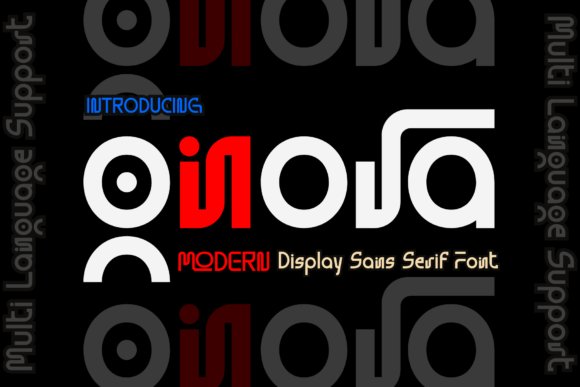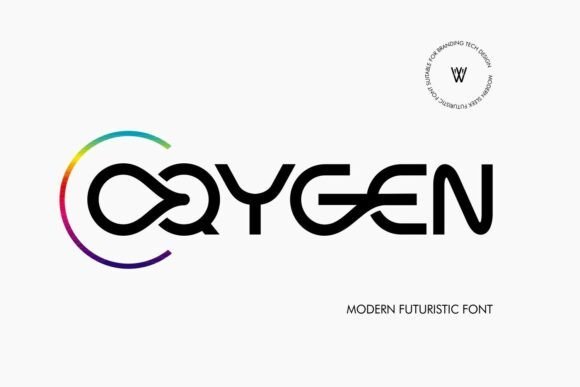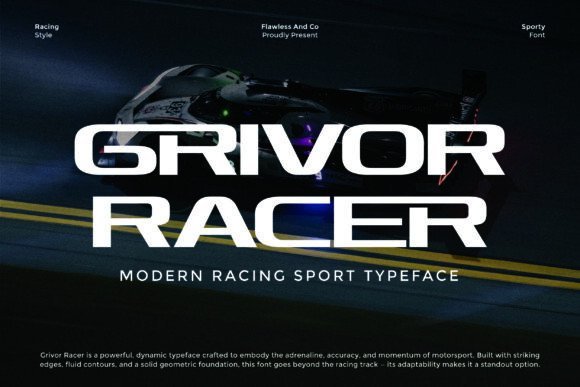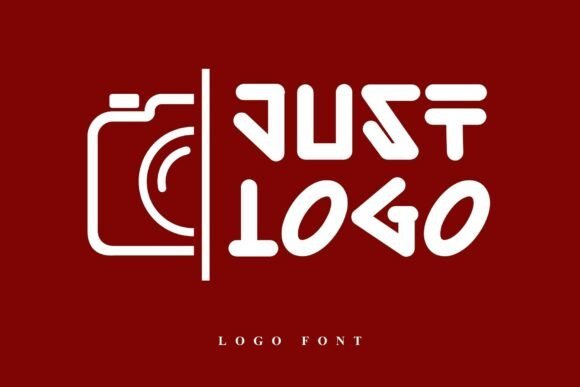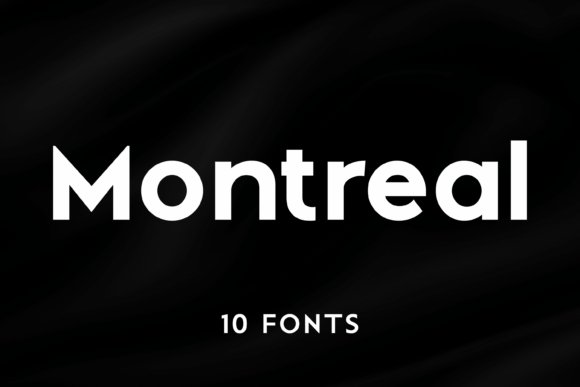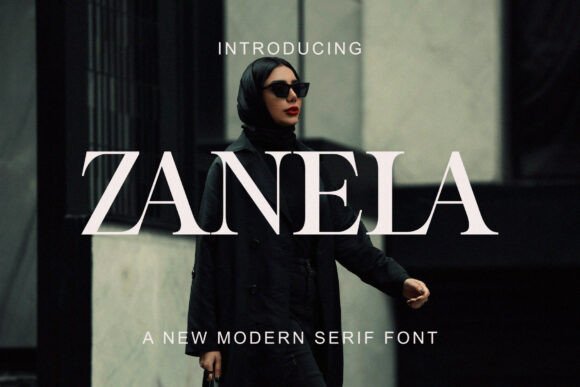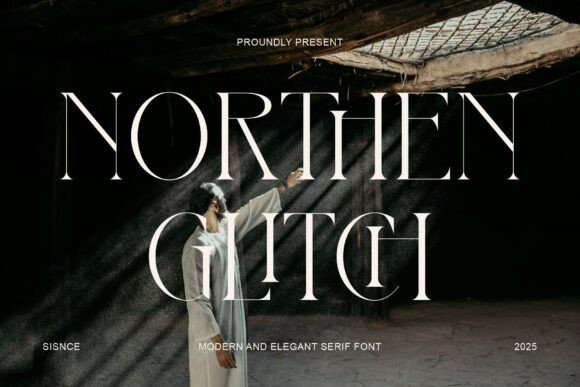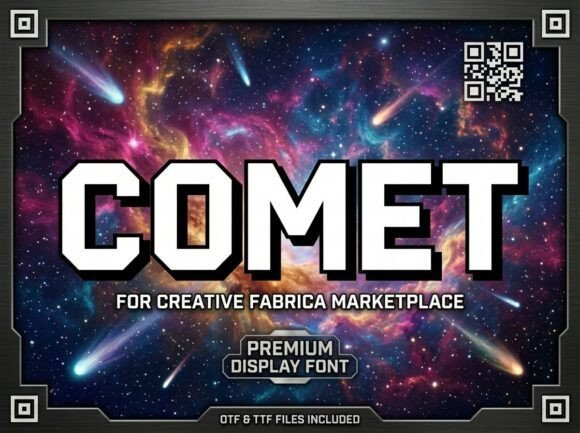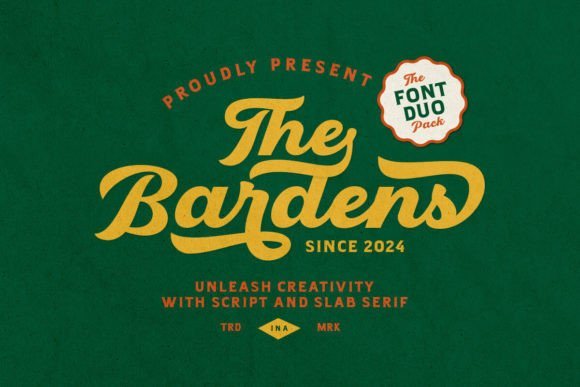
26 Trendy Geometric Logo Fonts for Bold Branding in 2026
Geometric Logo Fonts bring clean, grid-based letterforms and modern simplicity to brand marks, making them ideal for startups, tech companies, and creative studios.
This curated set of 26 typefaces spans modular sans-serifs, monoline glyphs, and geometric display styles, offering logo typography, monograms, and emblem-ready options. Use these geometric typefaces to achieve crisp legibility, strong wordmarks, and contemporary identity systems.
1. Gnora Font
Gnora Font
Gnora lands as a crisp geometric sans that balances cheerful personality with disciplined construction. Its closed counters, circular bowls, and even stroke widths give it a bright, approachable presence while retaining the precision designers want for professional identity work. Geometric Logo Fonts like Gnora excel at creating marks that feel modern without being cold – this one leans warm, making brands feel authentic and inviting.
On a closer read, Gnora’s letterspacing and subtle terminal cuts are tuned for tight wordmarks: letters lock together cleanly without losing individual clarity. The typeface reads equally well on stationery and large-scale signage because its shapes scale predictably; small caps remain legible and capitals hold their shape in simplified applications. Designers will appreciate how it performs in single-line logos and compact badge layouts.
Pairing wise, Gnora thrives when contrasted with a light humanist body font or a textured script for editorial accents; it also works solo for stripped-back identities. Its geometric rhythm lends itself to product packaging, social headlines, UI headers, and boutique branding where a friendly but structured voice is needed. Overall, Gnora is a versatile tool for anyone aiming for polished, contemporary marks that feel both playful and assured.
My Recommendation: I’d reach for Gnora when creating a brand that needs to feel modern yet personable-think artisan shops, lifestyle blogs, or boutique product lines. Its tidy geometric shapes make logo construction straightforward and reliable across print and digital. Use it when you want a logo that reads cleanly at small sizes but still carries character at large scales.
2. Oqygen Font
Oqygen Font
Oqygen announces itself with assertive geometry and a condensed profile that feels engineered for impact. The letterforms are deliberately compact, with tight counters and precise stroke terminals that create a bold silhouette in headlines and emblems. Its futuristic undertone-hinting at Y2K revival-gives identities a forward-leaning, tech-conscious attitude without leaning into gimmickry.
Technically, Oqygen behaves like a display-first sans: tracking should be adjusted for long runs, but its tight proportions are perfect for single-line logos, app icons, and title treatments. The consistent stroke weight preserves legibility even when scaled down for digital interfaces, while larger sizes let the geometric geometry breathe and show off its engineered detail. Use it where space is limited but presence is required.
Oqygen pairs best with neutral, open-source body fonts or humanist serifs to soften its clinical edge and create contrast. It’s ideal for technology brands, AI startups, and product launches that want a sleek, contemporary wordmark. If you need a condensed display face that reads as confident and futuristic, this one delivers with clarity.
My Recommendation: I recommend Oqygen for tech-forward branding and interface headers where a strong, compact presence is needed. Its condensed geometry makes it ideal for logos on limited-width platforms like app headers or narrow signage. Use it when you want a modern, assertive type that suggests innovation and efficiency.
3. Grivor Racer Font
Grivor Racer Font
Grivor Racer channels velocity with angular cuts and aerodynamic terminals that mimic the motion of motorsport visuals. The geometric backbone is aggressively stylized: characters push forward with forward-leaning cues and sharp diagonals, making this a quintessential display face for high-energy identities. The effect is immediate-logos, numbers, and badges gain intensity and motion simply through the type choice.
Functionally, Grivor Racer is built for bold settings where a dominant headline or emblem must grab attention at a glance. It favors all-caps treatments and performs best when used sparingly-team insignias, vehicle decals, posters, and merchandise where legibility at distance matters. Tight kerning emphasizes the compact, performance-driven aesthetic, while thicker weights hold up well in print and vinyl applications.
To balance its aggressive voice, pair Grivor Racer with neutral sans or condensed supporting text that won’t compete for attention. It’s perfect for motorsport brands, performance product packaging, event posters, and any project that needs the visual language of speed without sacrificing geometric control. The type conveys energy and precision in equal measure.
Whether you need a minimalist monoline or a bold modular display, these 26 selections make it easy to find a geometric typeface that strengthens your brand voice and scales across touchpoints.
Browse the collection, test pairings, and use structured letterforms, negative space, and contrasting weights to craft a memorable logo that communicates clarity and confidence.